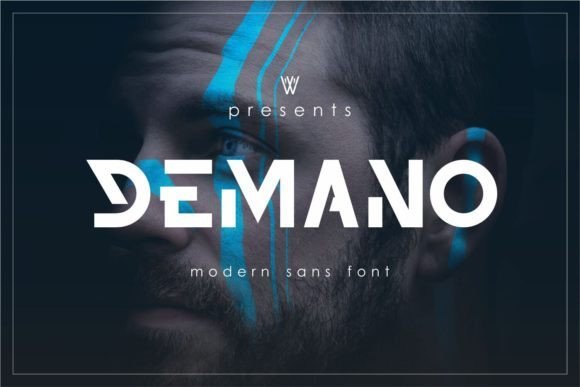
The Perfect Font for Your Next Masterpiece
Have you ever sat in front of your computer, staring at a blank screen, waiting for inspiration to strike? You know, that moment when the words just won’t come, but the vision is crystal clear in your mind? For designers, this is a common phenomenon, and it’s often the spark that sets the creative process ablaze.
Enter the Demano Font, a sans serif font that’s been masterfully designed to help bring your ideas to life. With its sleek lines and modern aesthetic, Demano Font is the perfect tool for designers looking to elevate their work. Whether you’re working on a logo, a brochure, or a website, Demano Font is sure to impress.
What makes Demano Font so valuable for designers is its versatility and adaptability. It’s a font that can be used for a wide range of projects, from formal to informal, and it always looks great. With Demano Font, you can trust that your work will be taken seriously, and that it will make a lasting impression on your audience.
Demano Font Key Features
- Font Family: Demano Font is a sans-serif font family that offers a clean and modern look.
- Size: The font family includes multiple weights and styles, ranging from 100 to 900, with corresponding italic and bold-italic versions.
- Resolution: Designed to be legible at high resolutions, making it suitable for both print and digital applications.
- Unique Characteristics: Demano Font features a unique blend of geometric and organic elements, giving it a distinctive and modern appearance.
- Language Support: Supports a wide range of languages, including Latin, Cyrillic, and Greek alphabets, making it a versatile font for international applications.
Demano Font Review
Overall, I’m quite impressed with the Demano Font. It’s a bold, modern sans-serif font that’s perfect for making a statement in any design project.
- Unique aesthetic: Demano Font’s distinctive style sets it apart from more common sans-serif fonts.
- High legibility: The font’s boldness doesn’t compromise its readability, making it suitable for body text as well as headings.
- Wide character set: Demano Font supports a vast range of languages and characters, making it a great choice for multilingual designs.
- Limited nuance: Demano Font’s boldness can sometimes feel overpowering, lacking the subtlety of more nuanced sans-serif fonts.
- Not ideal for fine typography: Due to its bold nature, Demano Font might not be the best choice for projects that require intricate typography or delicate text arrangements.
Overall, I’d recommend Demano Font for projects where you want to make a bold statement. While it may not be suitable for every design task, its unique aesthetic and high legibility make it a valuable addition to any font library.
Getting the Most Out of Demano Font
To get the most out of Demano Font, consider the following tips:
- Use the Demano Font in combination with other fonts to create a unique and visually appealing design.
- Experiment with different font sizes, colors, and styles to create contrast and emphasis.
- Use the Demano Font in headings and titles to create a clear hierarchy of information.
Alternatives to Demano Font for Designers
Montserrat is a popular sans-serif font designed by Julieta Ulanovsky. It’s ideal for use in digital media, such as websites, apps, and social media platforms. Montserrat is known for its clean lines, geometric shapes, and versatility, making it a suitable replacement for Demano Font in modern design projects.
Comparison to Demano Font: Montserrat has a more geometric and modern feel compared to Demano Font, which has a more rounded and playful appearance. Montserrat is also more suitable for digital media, while Demano Font is more commonly used in print materials.